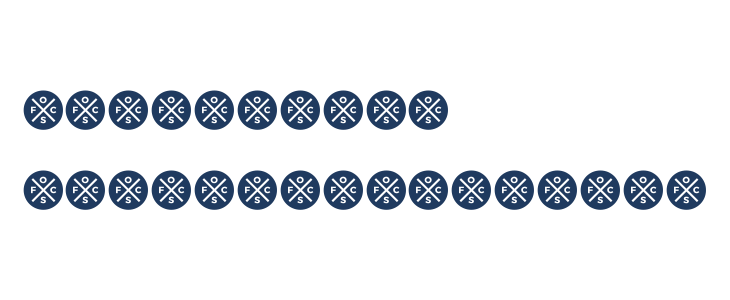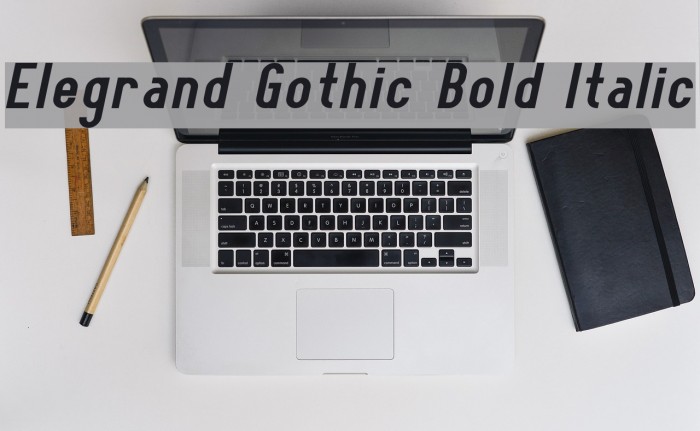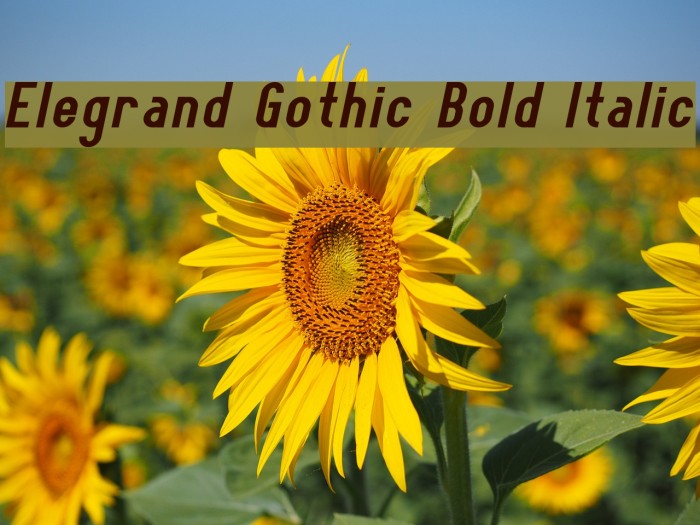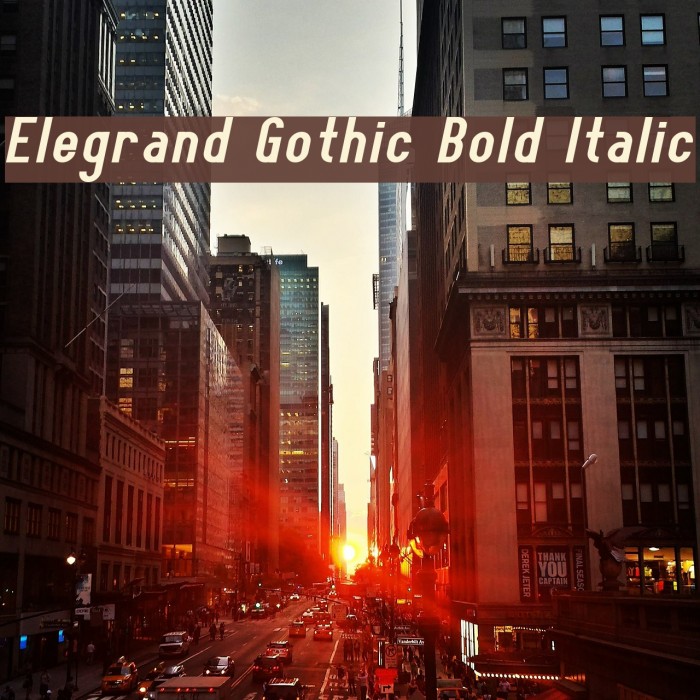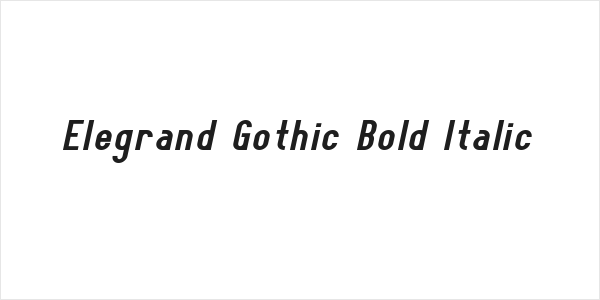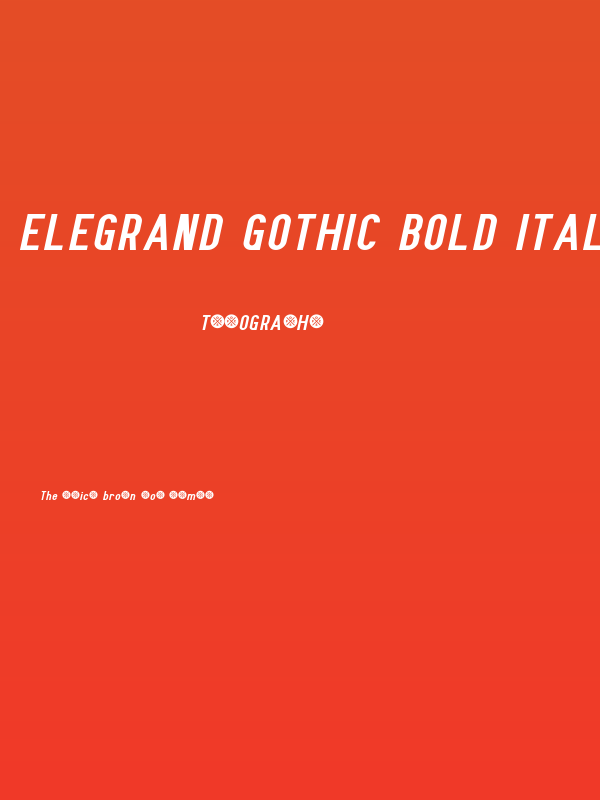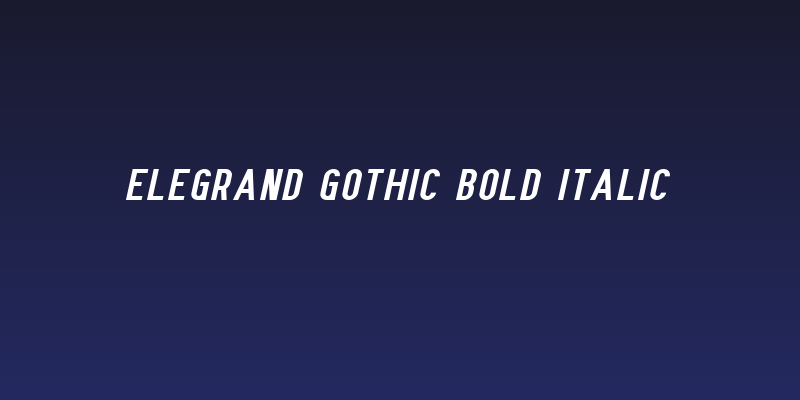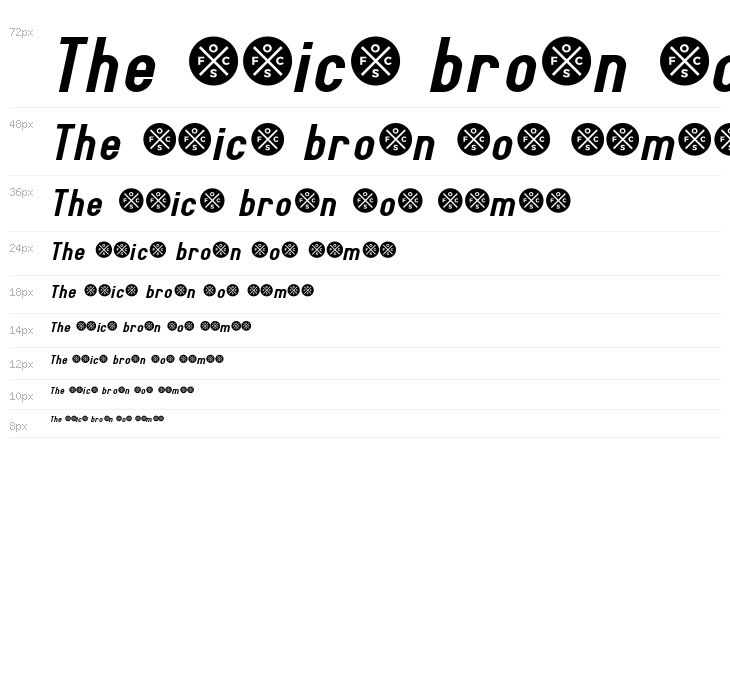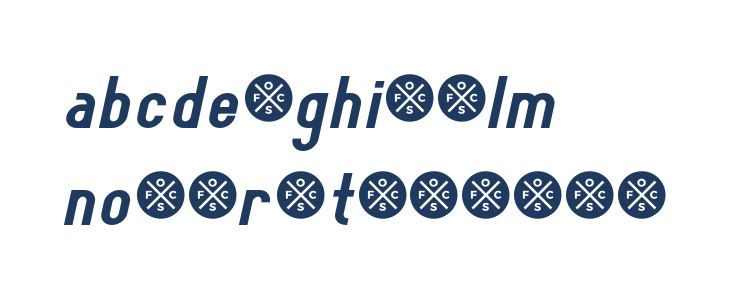
Elegrand Gothic Bold Italic Font
Elegrand Gothic Bold Italic Description
This font exhibits a bold and italicized style, characterized by its strong presence and dynamic slant. The letters are slightly condensed, giving it a compact appearance while maintaining readability. The strokes are consistent in weight, providing a uniform look across all characters. The font's design is modern and sleek, making it suitable for contemporary applications. The uppercase and lowercase letters are well-proportioned, with a slight emphasis on verticality. The numerals and special characters are designed to match the overall aesthetic, ensuring a cohesive look throughout.